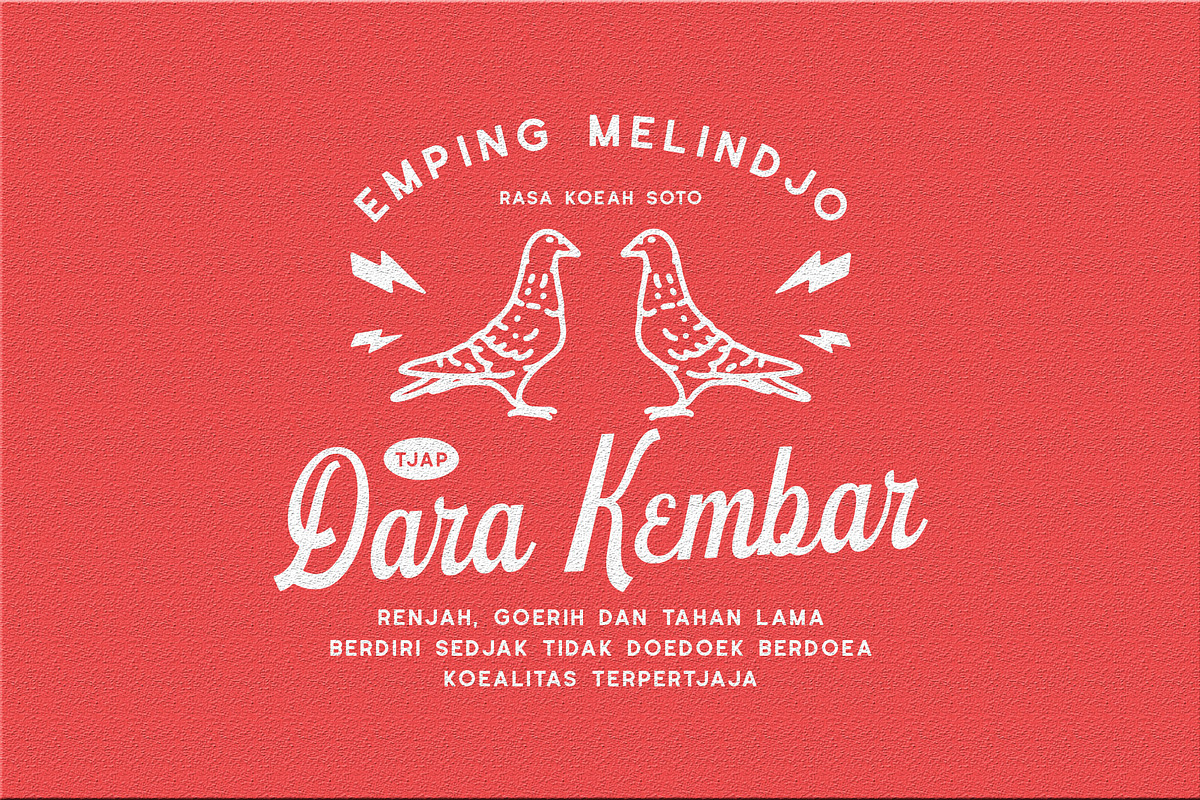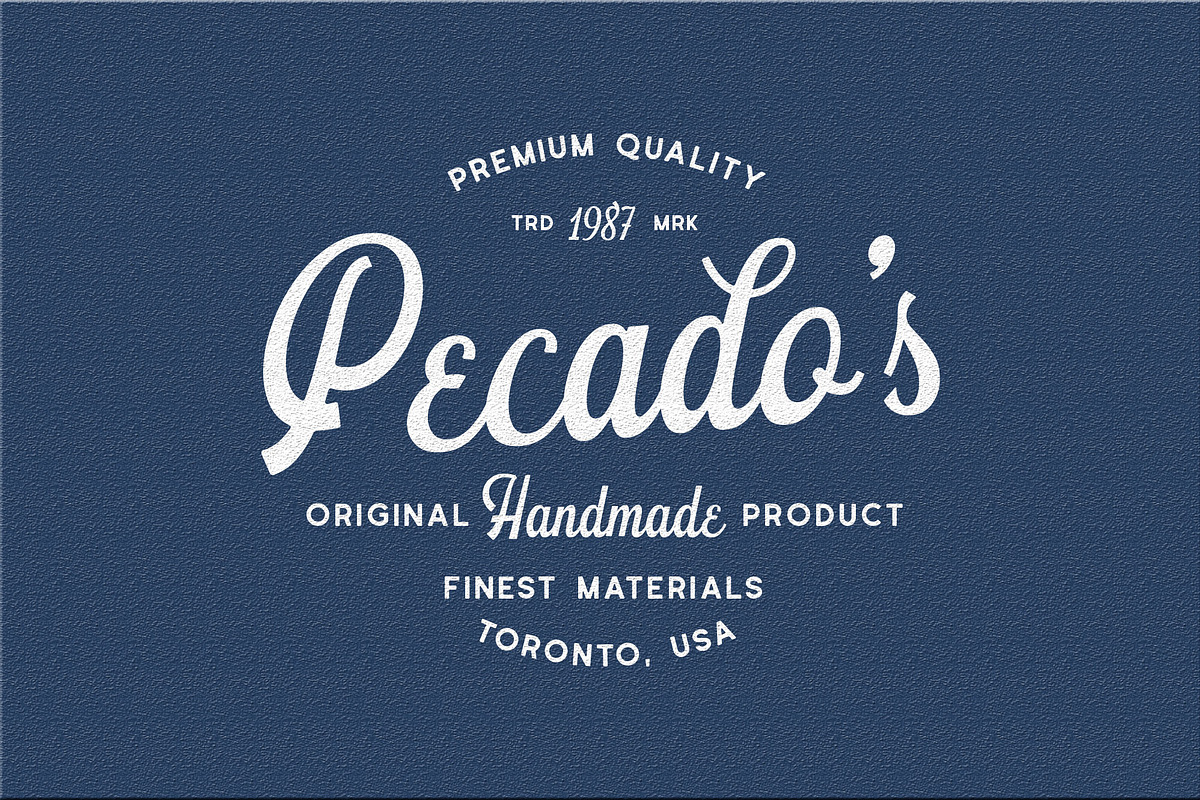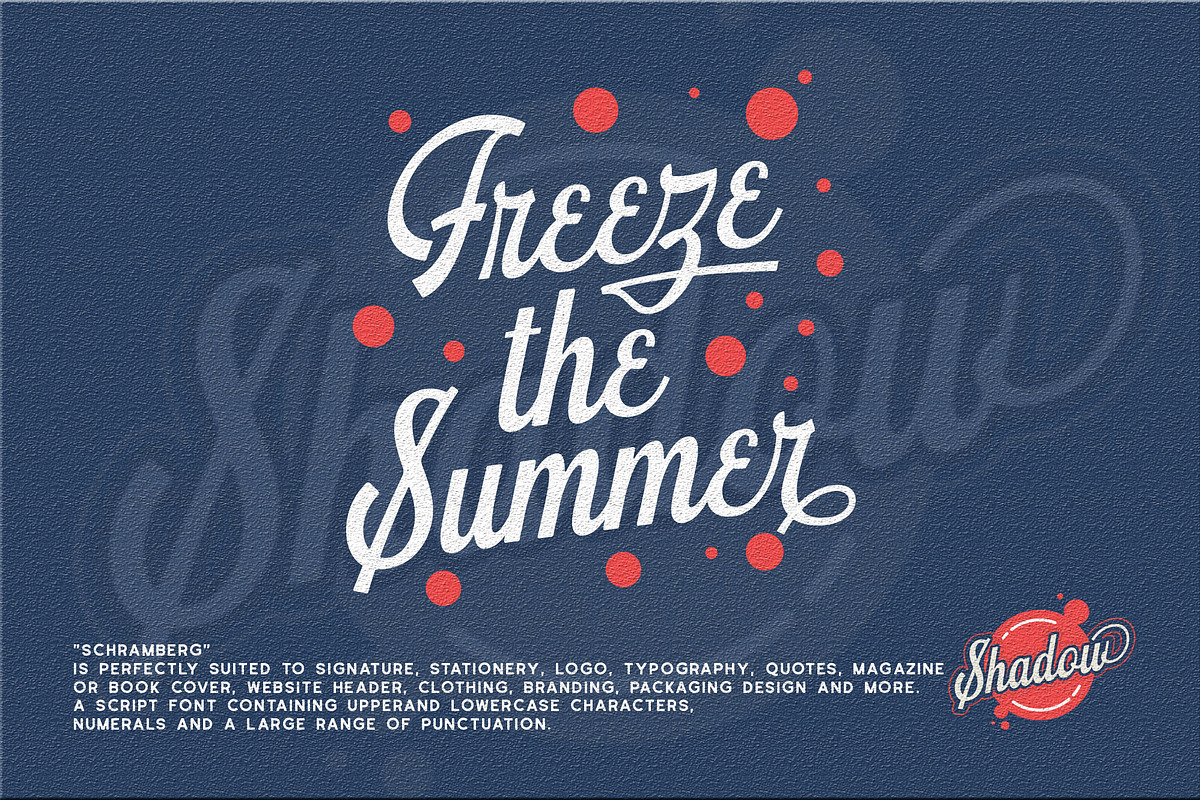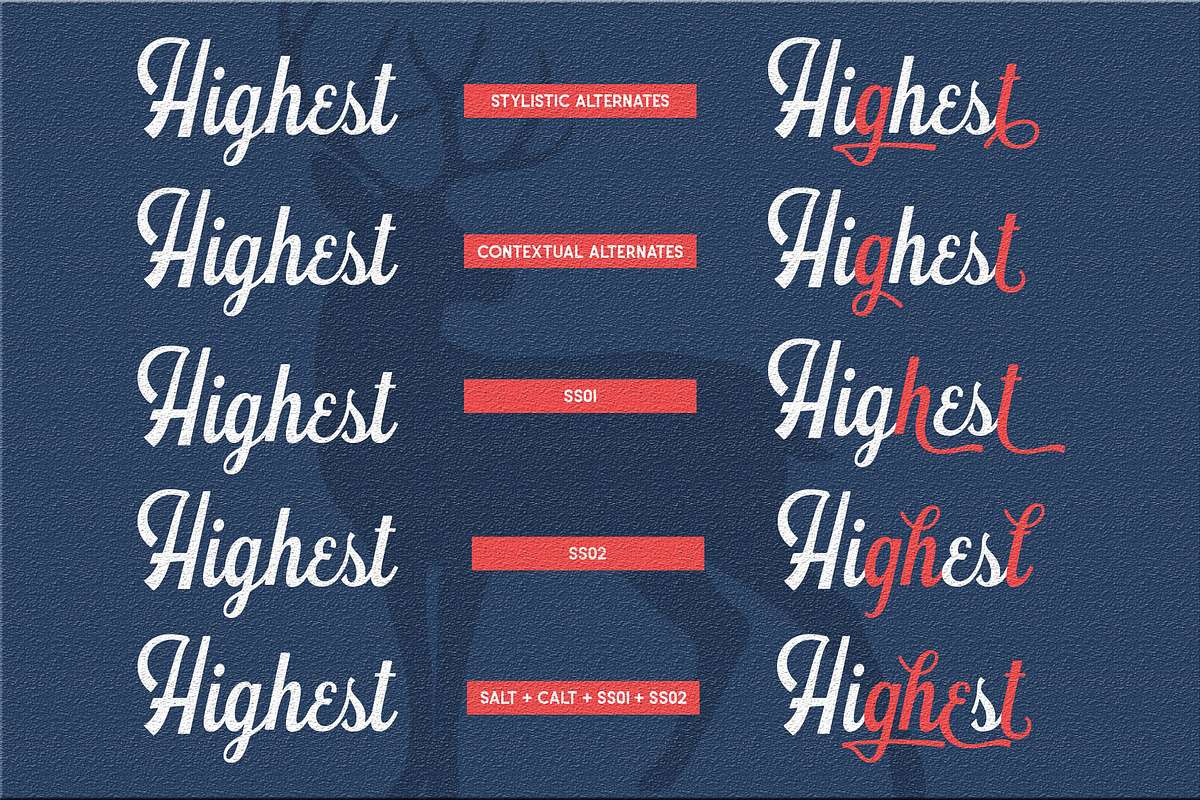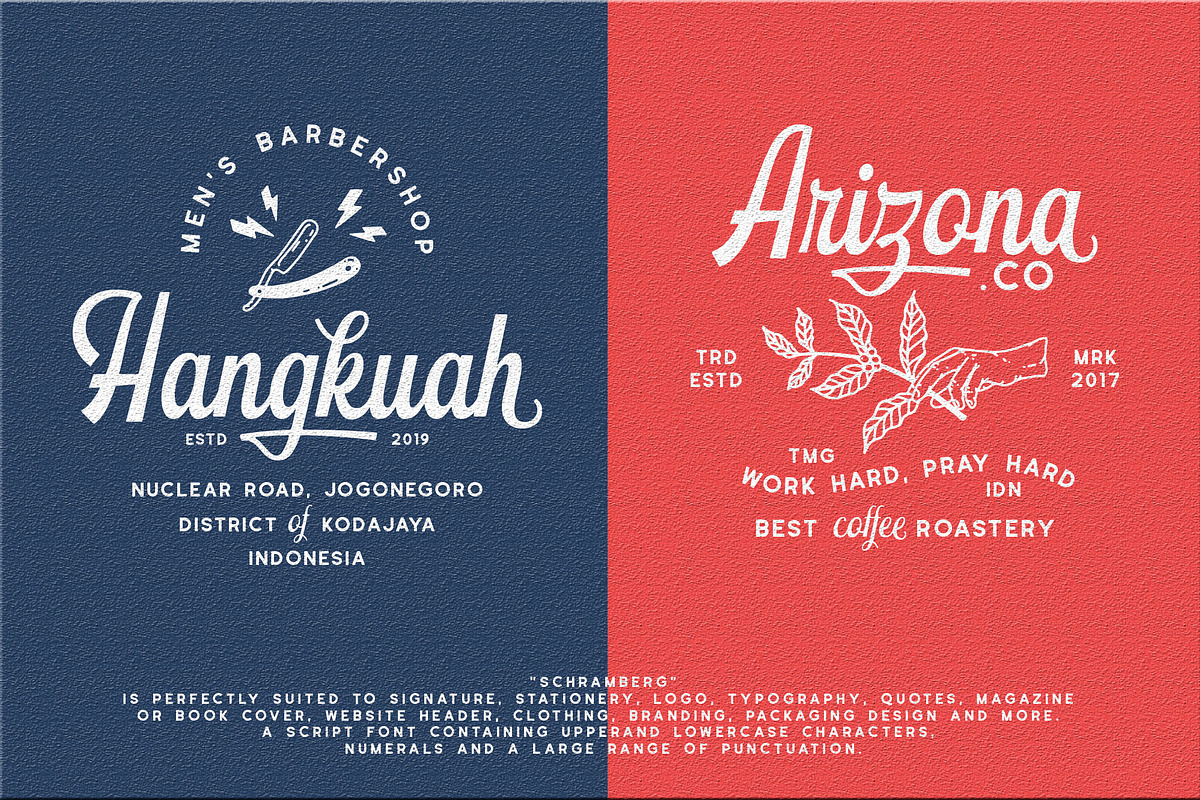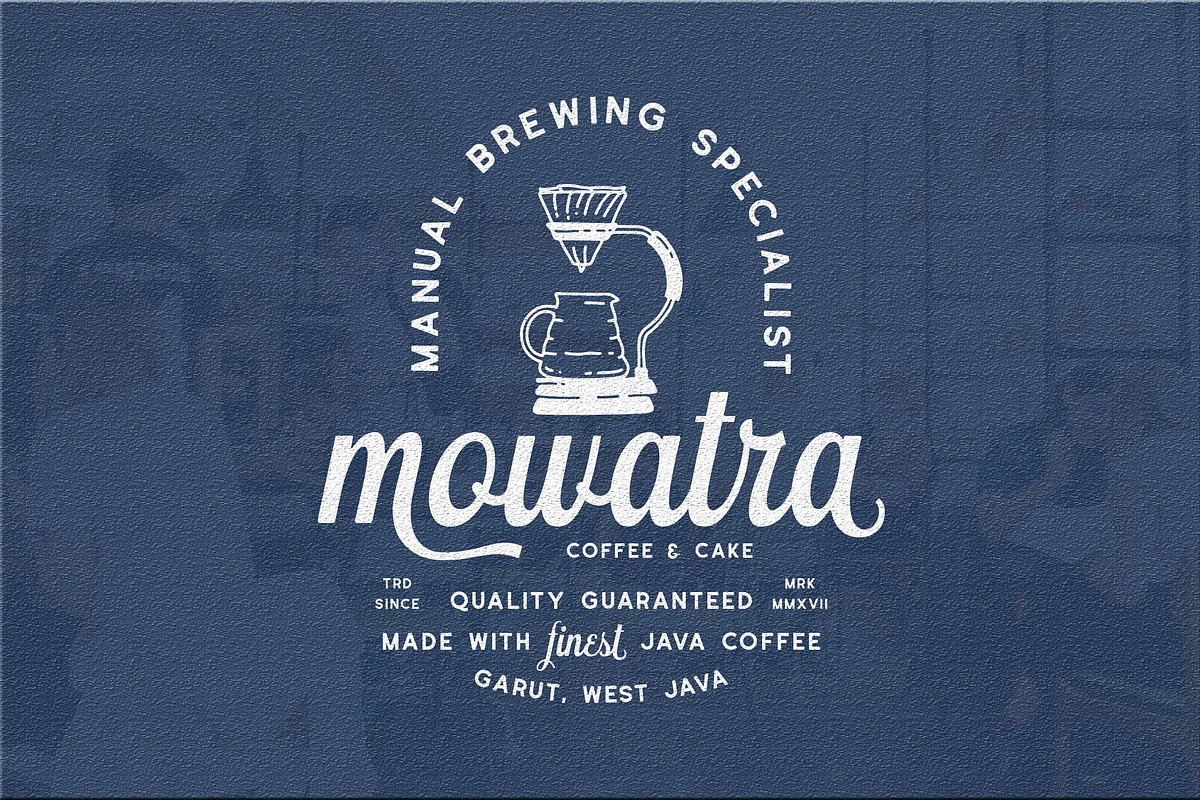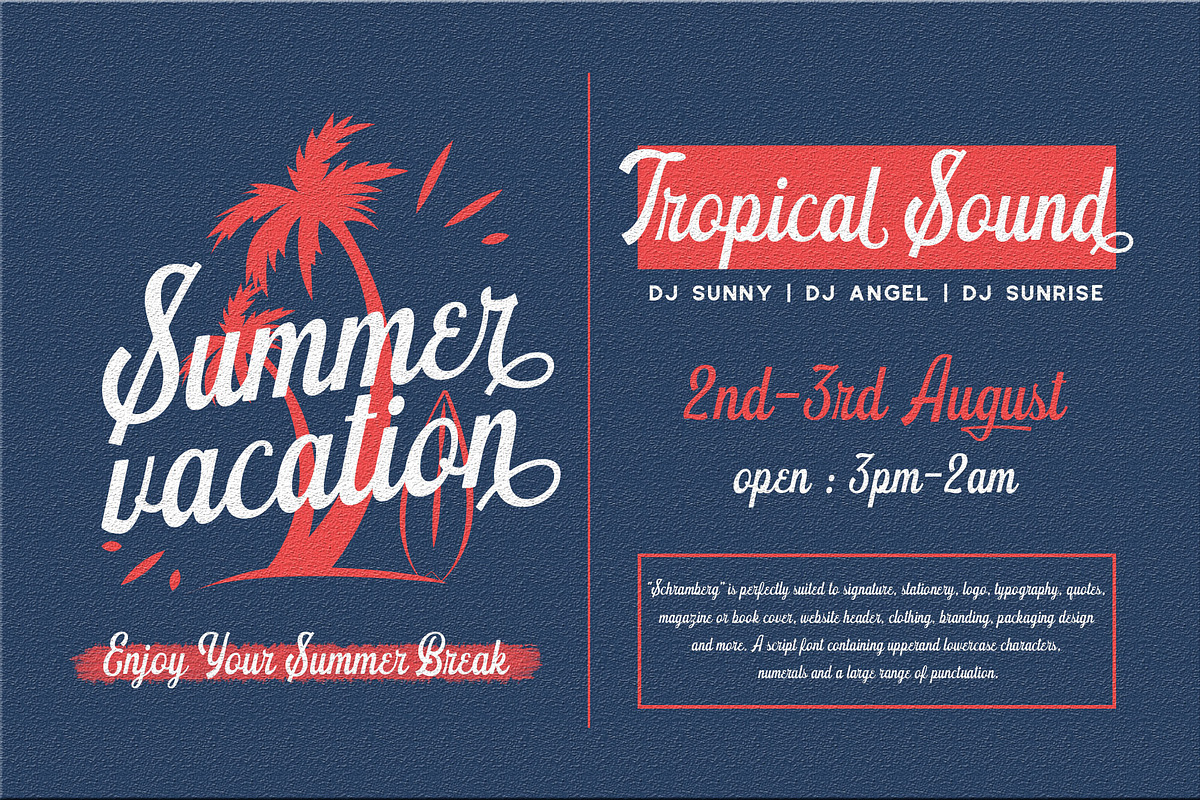
Schramberg Font Duo + Logo Template
Introducing!!! Schramberg the new typeface inspired by vintage labels and combinating with modern design. Schramberg features with stylistic alternate, contextual alternate and stylistic set. This font come with 2 style, script and sans serif to mix and match your vintage design, t-shirt, logo, labels, badges, posters and etc.
- Schramberg features with stylistic alternate, contextual alternate and stylistic set.
Schramberg Font Duo + Logo Template by Runsell Studio fits naturally into Branding, posters, packaging, typography.